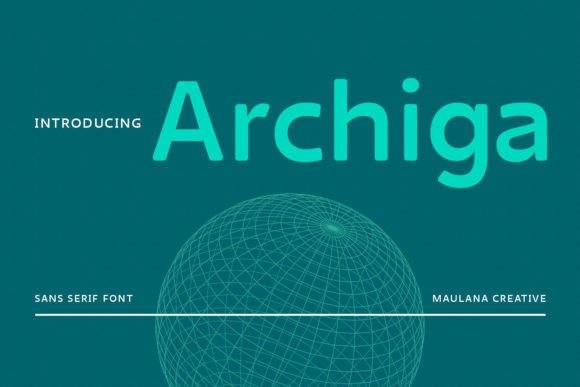
Looking for the best font for cut out letters? Look no further than Archiga Font by Maulana Creative! This stunning sans-serif font boasts clean lines and soft curves that exude modernity and elegance. Each letter is crafted with a delicate touch, giving it a warm and friendly look that's perfect for designs that require a balance of sophistication and approachability.
Archiga is not just another run-of-the-mill font. It's the perfect choice for designers who want to make a lasting impression with their work. This font is versatile and can be used in a variety of design projects, including logos, branding materials, websites, and more. It's a true multi-purpose font that will elevate any design.
But what really sets Archiga apart is its ability to cut through the noise and grab your attention. This font is keyword-rich, making it a great choice for those who are looking to improve their SEO. With Archiga, your designs will stand out and get noticed.